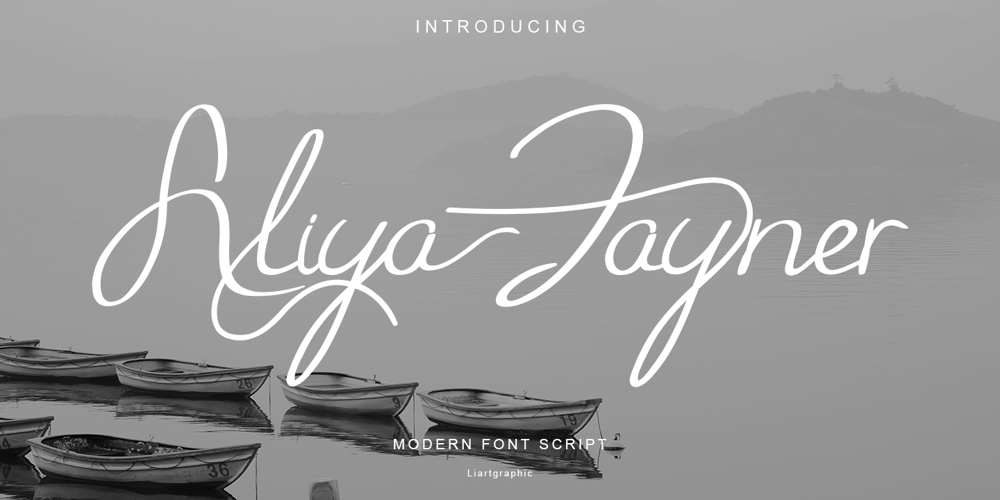
Aliya Jayner Font Family was designed by Ali Sifak Muftari and published by Liartgraphic. Aliya Jayner contains 1 styles and family package options. Aliya Jayner was created by Liartgraphic Studio and is a modern script concept with many alternative, multi-lingual choices. This typeface is good for use on product brands, magazines, book covers, packaging, and others.